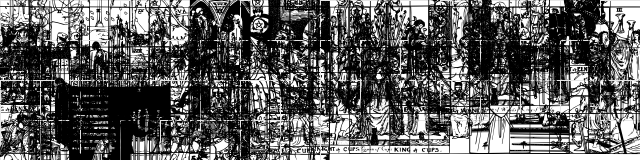
Gypsy Tarot-Minor Arcana Regular
| Foundry | Pamela Colman Smith for The Rider Company, December, 1909. Fonted by bobistheowl for Metaphase Brothel Graphix. |
| Designer | Pamela Colman Smith for The Rider Compan, 1909. |
Design Context for Gypsy Tarot-Minor Arcana Typeface
Gypsy Tarot-Minor Arcana is a composed and adaptable typeface that performs quietly and consistently across a wide range of design contexts.